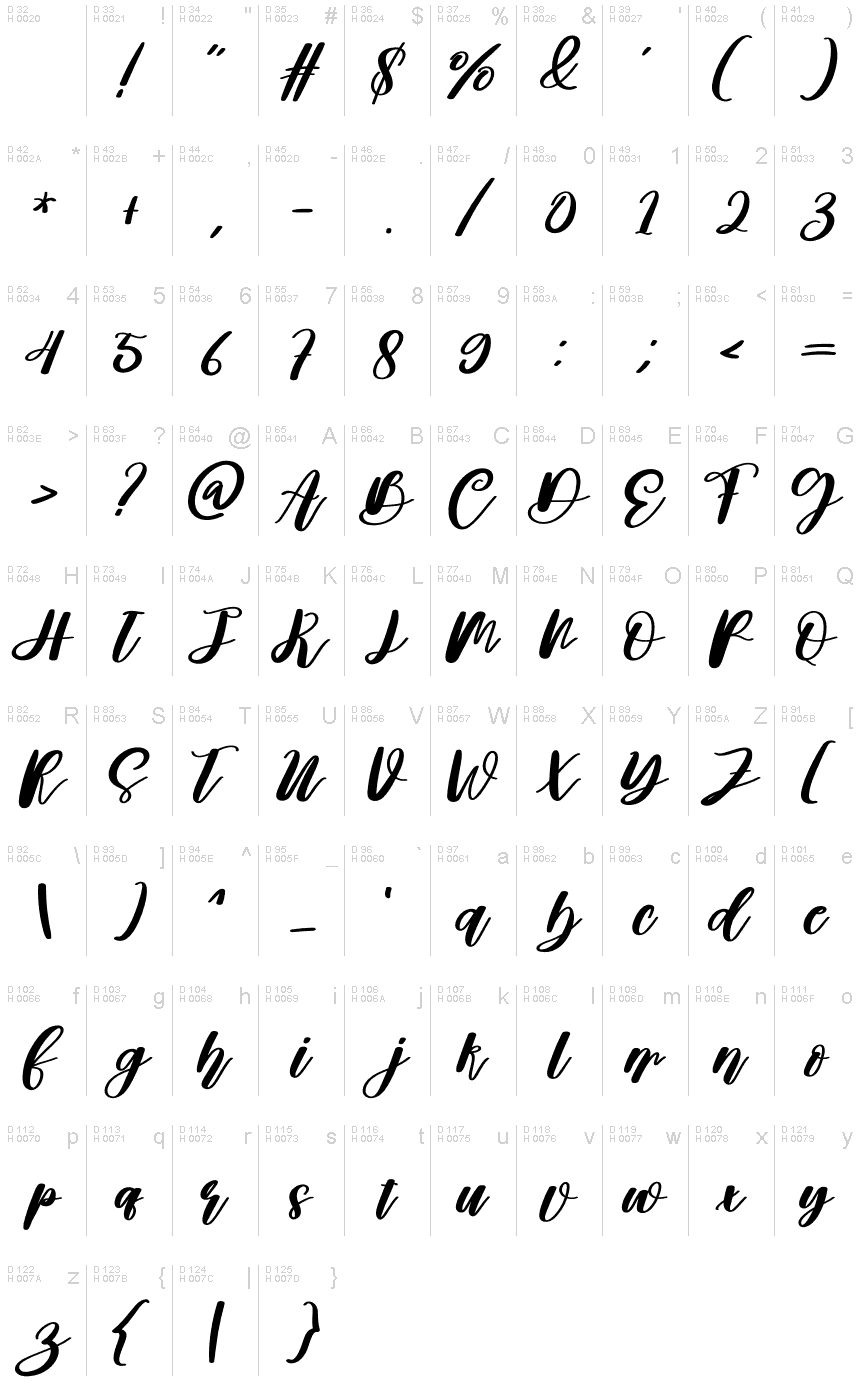
Pinkink
Looking for a bold and creative font to make your project stand out? Look no further than Pinkink - the smooth brush typeface designed by scratchones. With its unique style and bold weight, Pinkink is perfect for a variety of projects, from eye-catching logos to dynamic advertisements. Whether you're looking to add an artistic touch to your brand or create stunning graphics, Pinkink is sure to make a lasting impression. So why settle for a basic font when you can elevate your design with the bold and creative Pinkink?
the latest style letters are perfect for wall displays, wedding invitations, social media post logos, advertisements, product packaging, product designs, labels, photography, watermarks, invitations, stationery, and any project that requires taste handwriting.